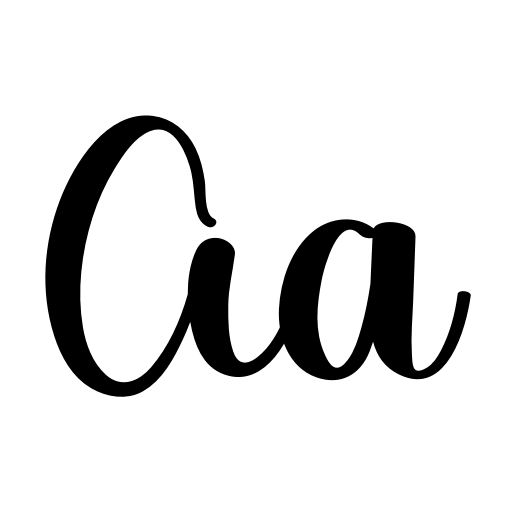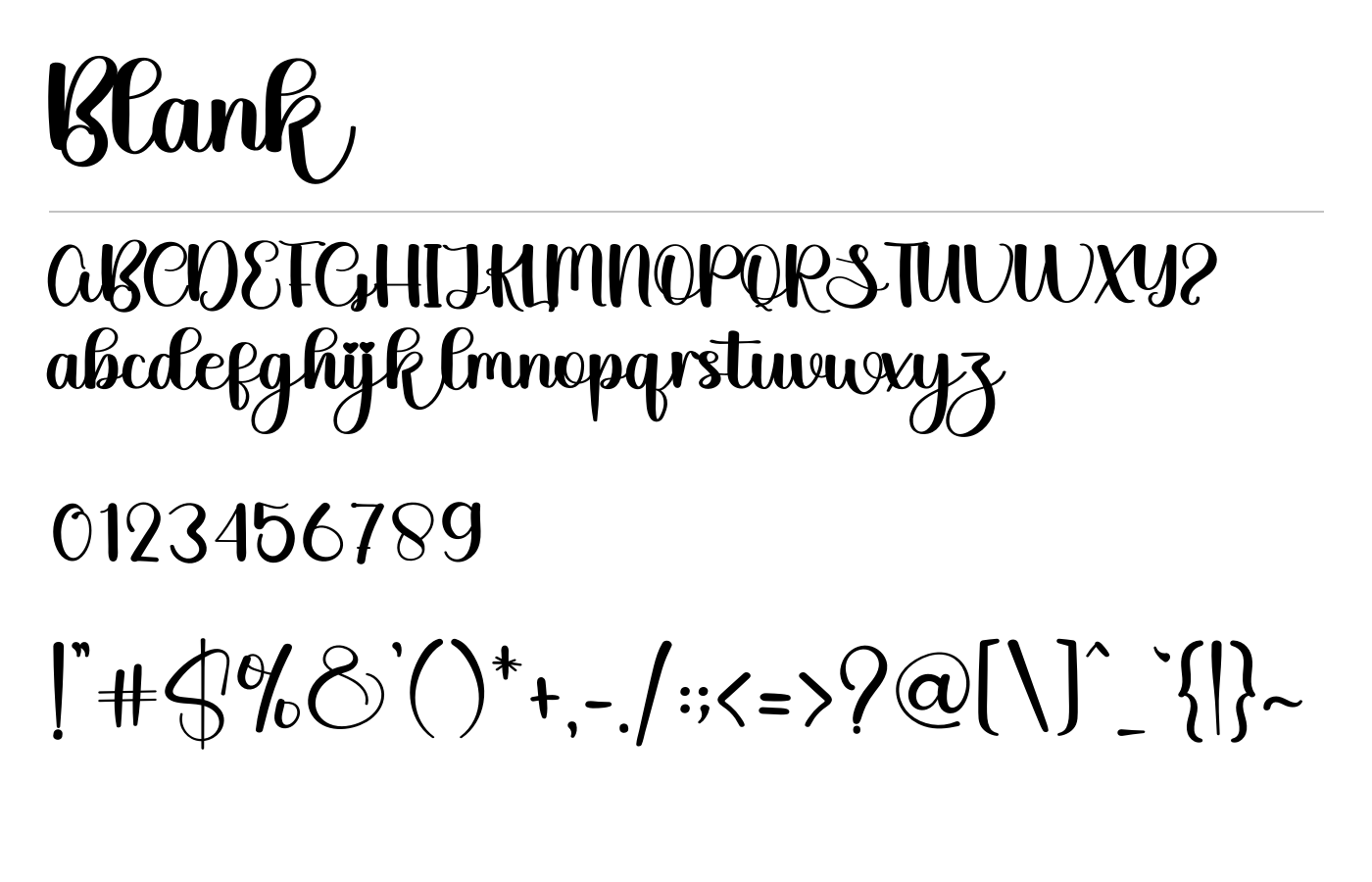
Blank Font is a playful and elegant script typeface with a lively, handwritten feel. Featuring a medium weight with smooth, rounded strokes and charmingly irregular letterforms, it works beautifully for creative branding, invitations, and casual editorial projects that aim to convey warmth and personality. Its friendly style makes it perfect for designs that want to feel approachable yet stylish.
Blank Font